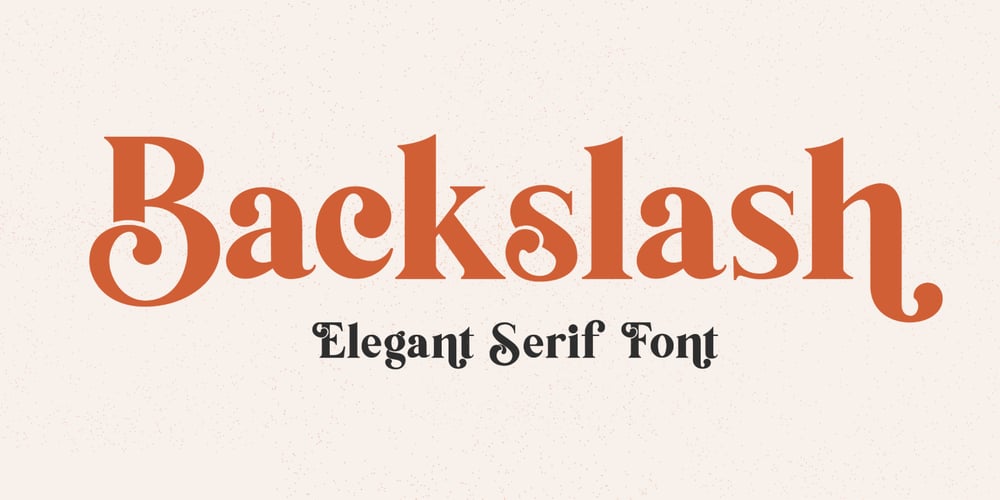
Backslash Font Family was designed by David Kasidi and published by Silverdav. Backslash contains 1 styles and family package options. Backslash is a new display serif typeface with nicely balanced curves, tons of alternative characters, ornaments, multilingual support and unique ligatures.Its wide range of stylistic alternates allows for versatile design options and works perfectly for headlines, logos, posters, packaging, T-shirts, postcards, bold magazine imagery, wedding invitations, branding and so much more.